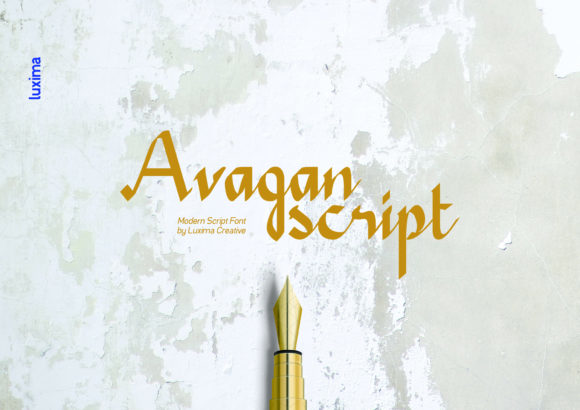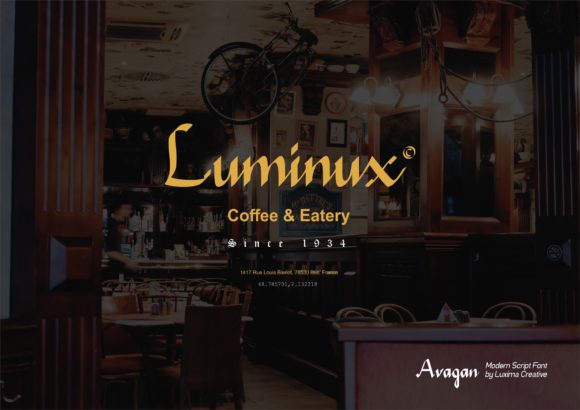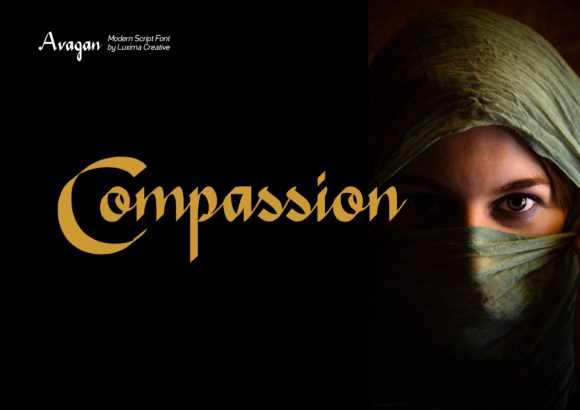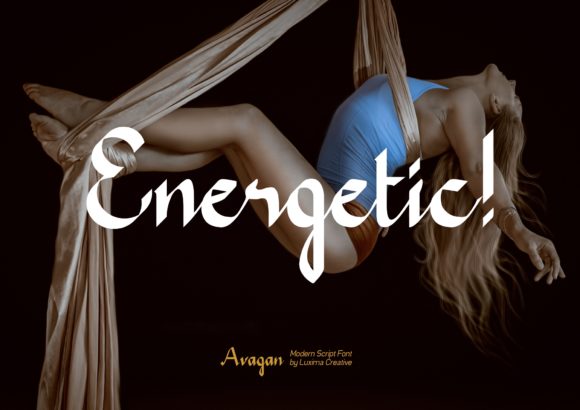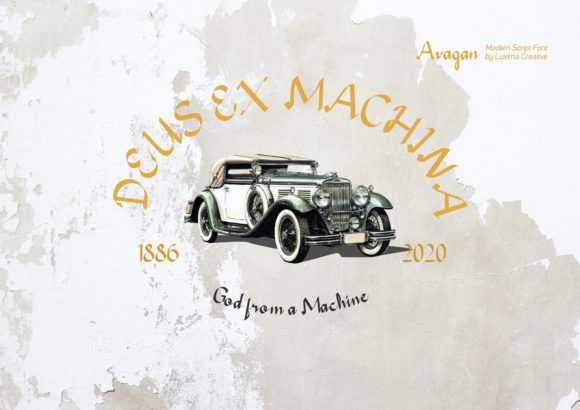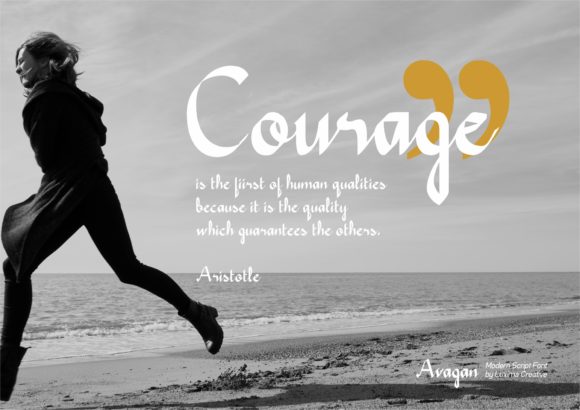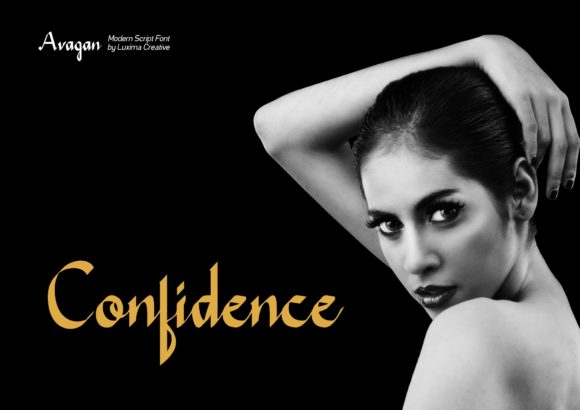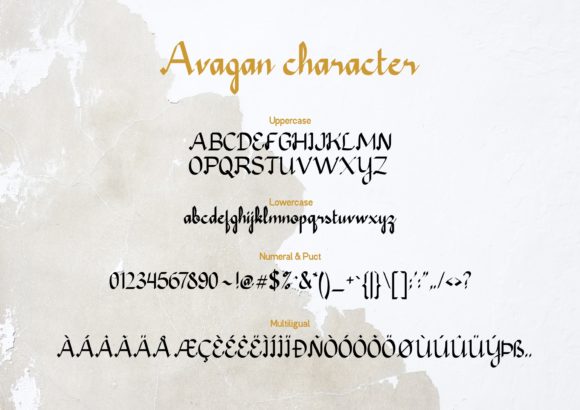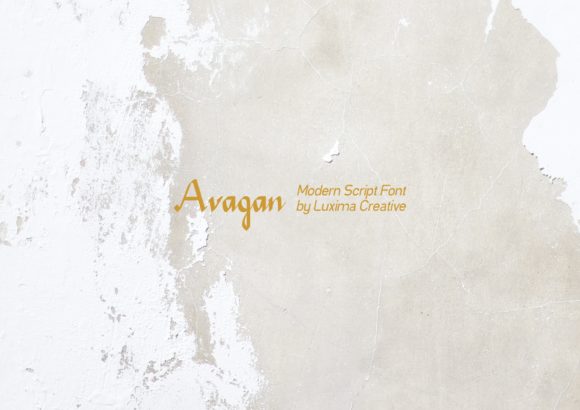
HomeScript FontsAvagan Font Script Fonts Avagan Font FacebookXPinterestWhatsApp Avagan Font Poster 2 Avagan Font Poster 3 Avagan Font Poster 4 Avagan Font Poster 5 Avagan Font Poster 6 Avagan Font Poster 7 Avagan Font Poster 8 Avagan Font Poster 9 About Avagan Font Avagan is a modern, yet classy script with a sophisticated feel. It will easily make any design project stand out. DOWNLOAD ON CREATIVE FABRICAThis font is sold and delivered by Creative Fabrica. Font Canyon may earn a commission if you buy through this link. People also explored Mellanika Simple Mandala Font Giftmas Font Raholco Font Baldorty Font Dinosaur Font Hello Loved Font MAttius Rossy Font Maribast Font 415 0 TagsAvagan Font Previous articleBohela FontNext articleBakira Font LEAVE A REPLY Cancel reply Comment: Please enter your comment! Name:* Please enter your name here Email:* You have entered an incorrect email address! Please enter your email address here Website: Save my name, email, and website in this browser for the next time I comment. Personal Use Free Bakk Trieng Personal Use Free Read more about this font Anggiana Personal Use Free Read more about this font White Rose Personal Use Free Read more about this font Gupis Personal Use Free Read more about this font BLOG Best Fonts for T-Shirt Design – Top 2025 Picks In 2025, t-shirt design has become more than just fashion—it's a form of self-expression. Whether you're... How to Install and Use Fonts on Windows, macOS, and Web Projects How to Cut Any Font on Cricut: Convert a Font to SVG (Free) Fonts That Capture the Spirit of New York City